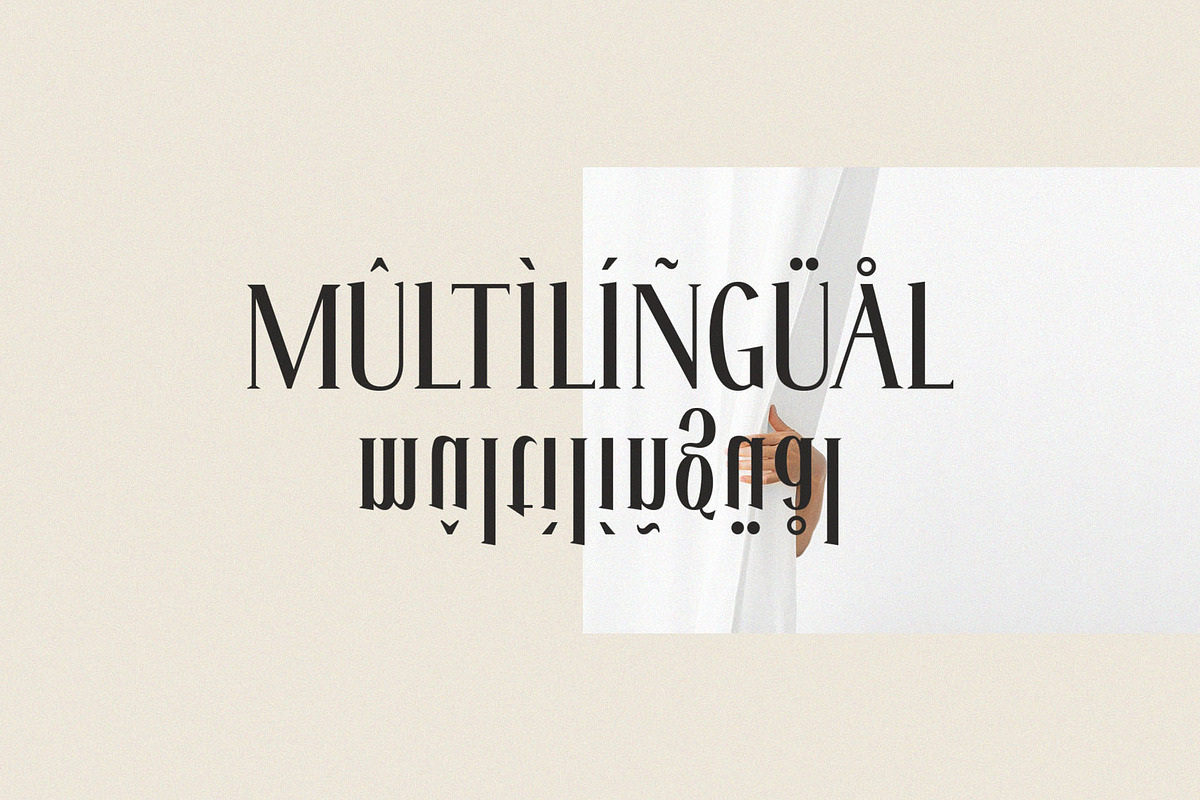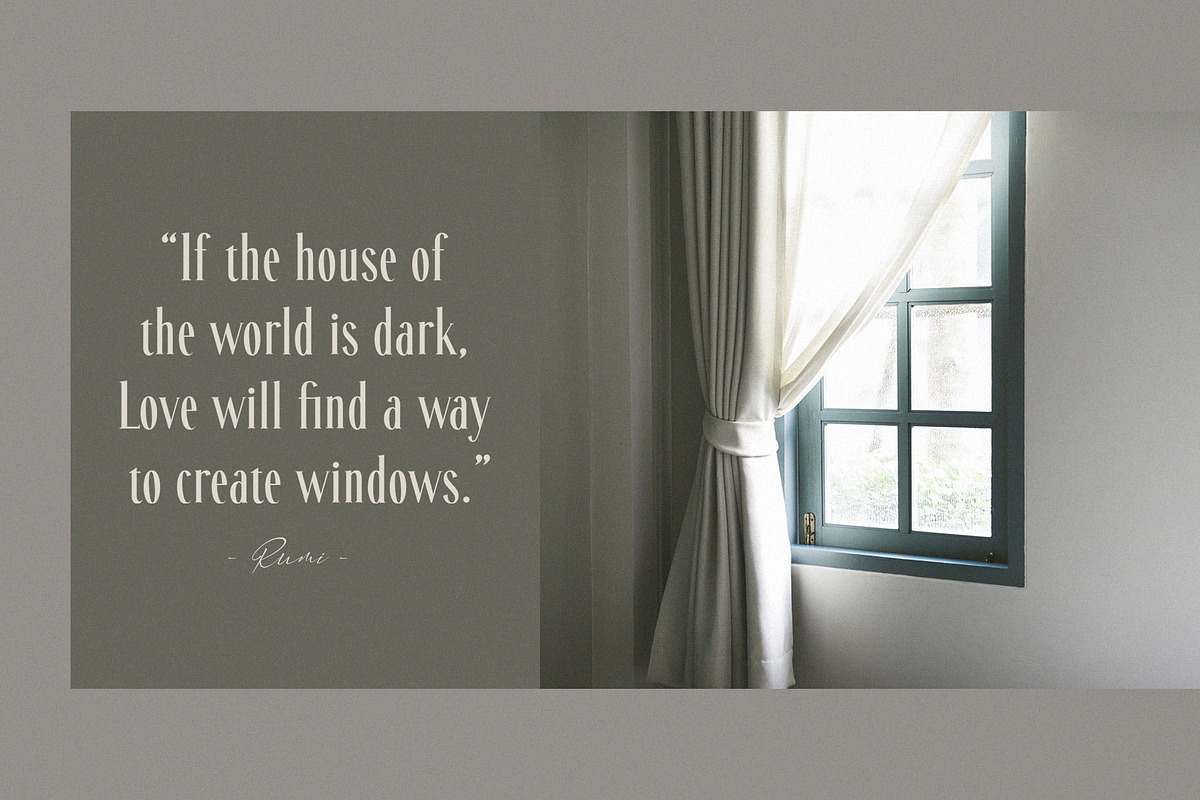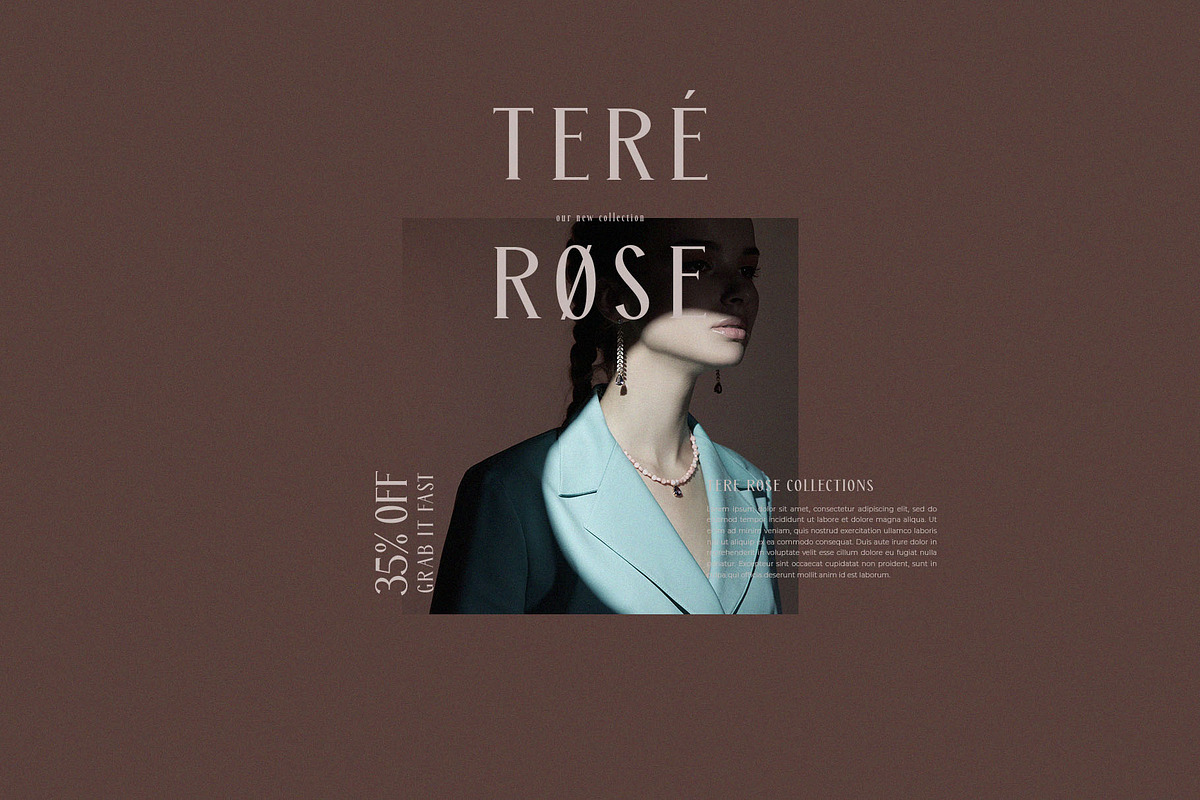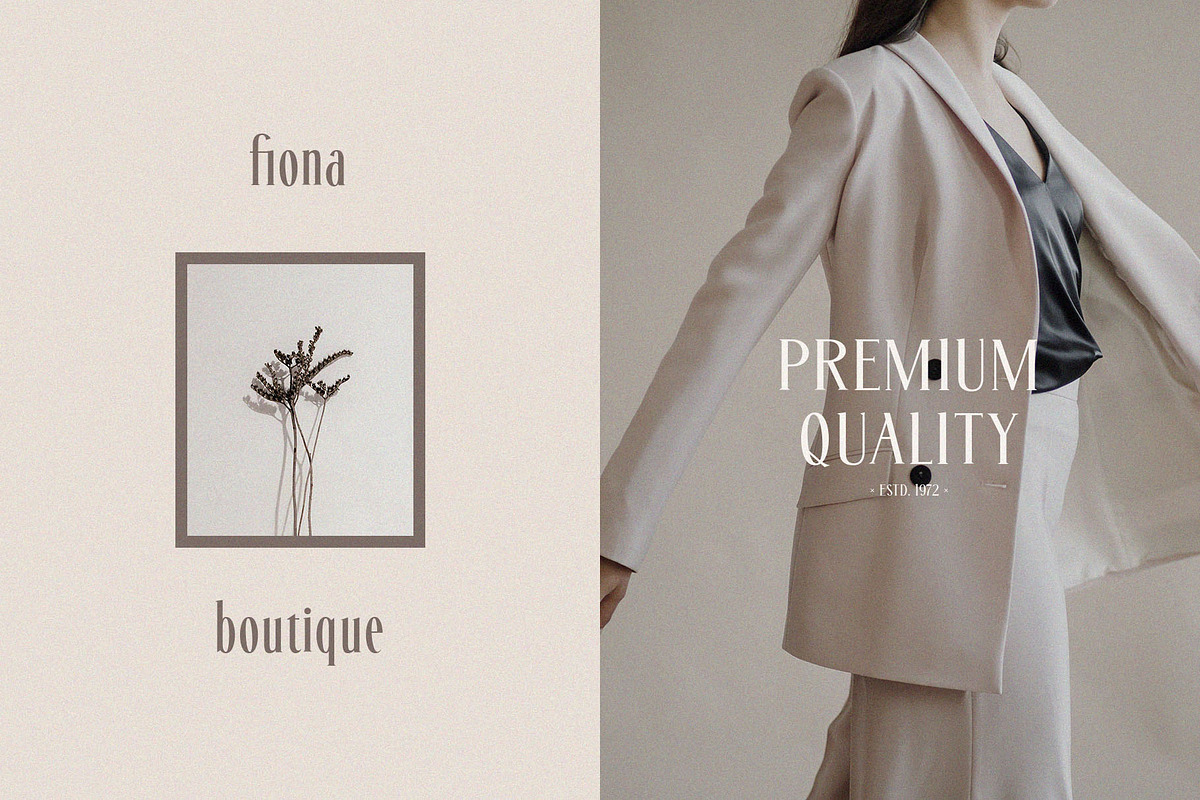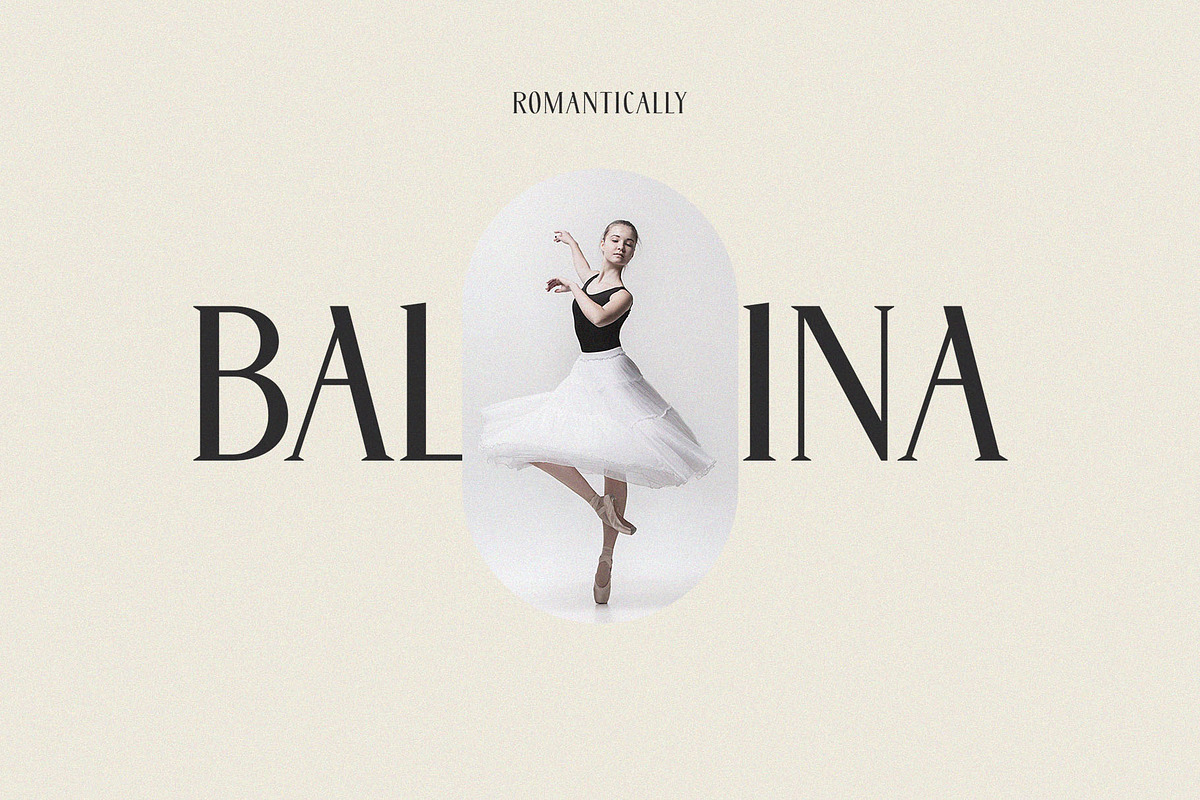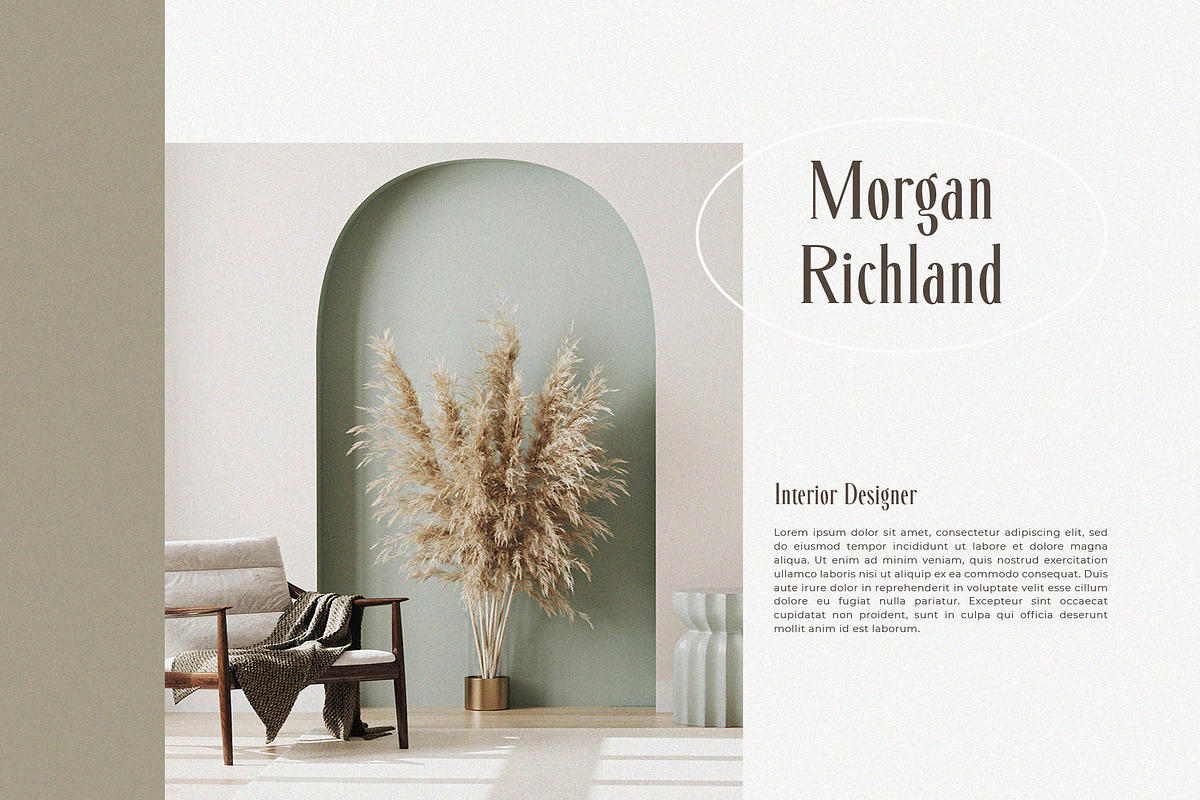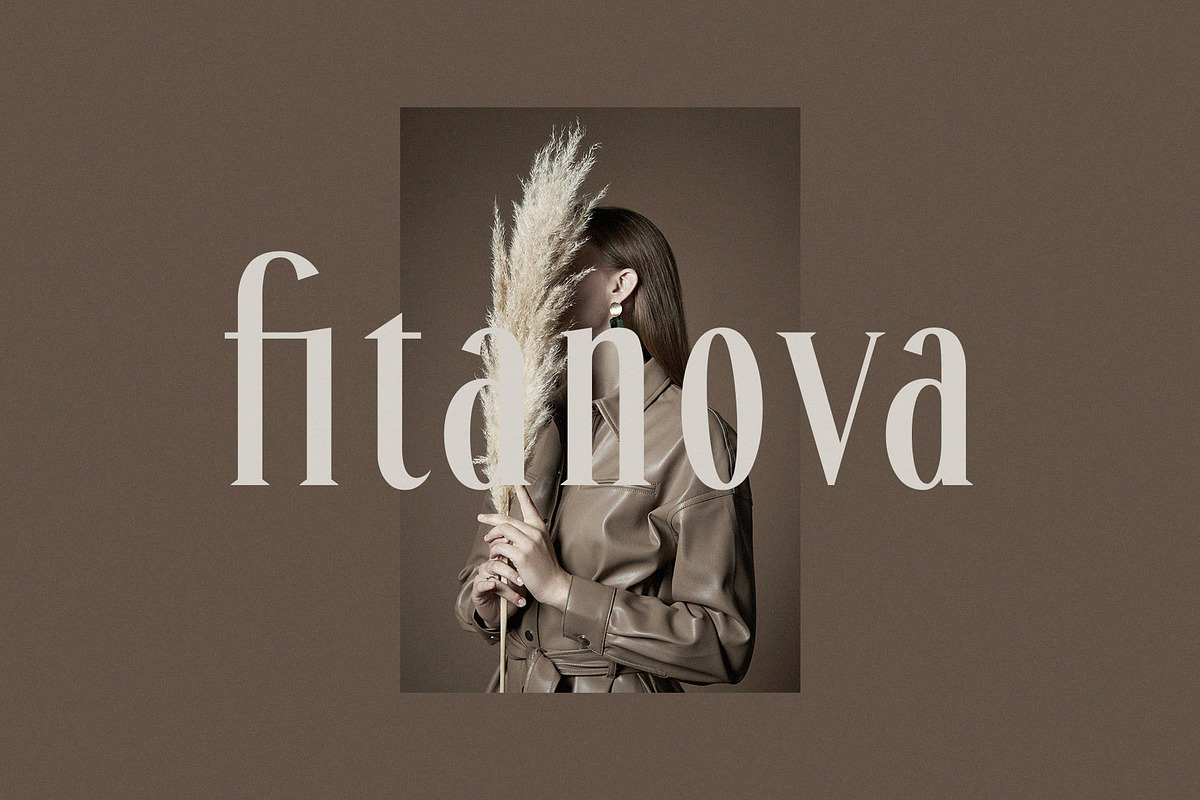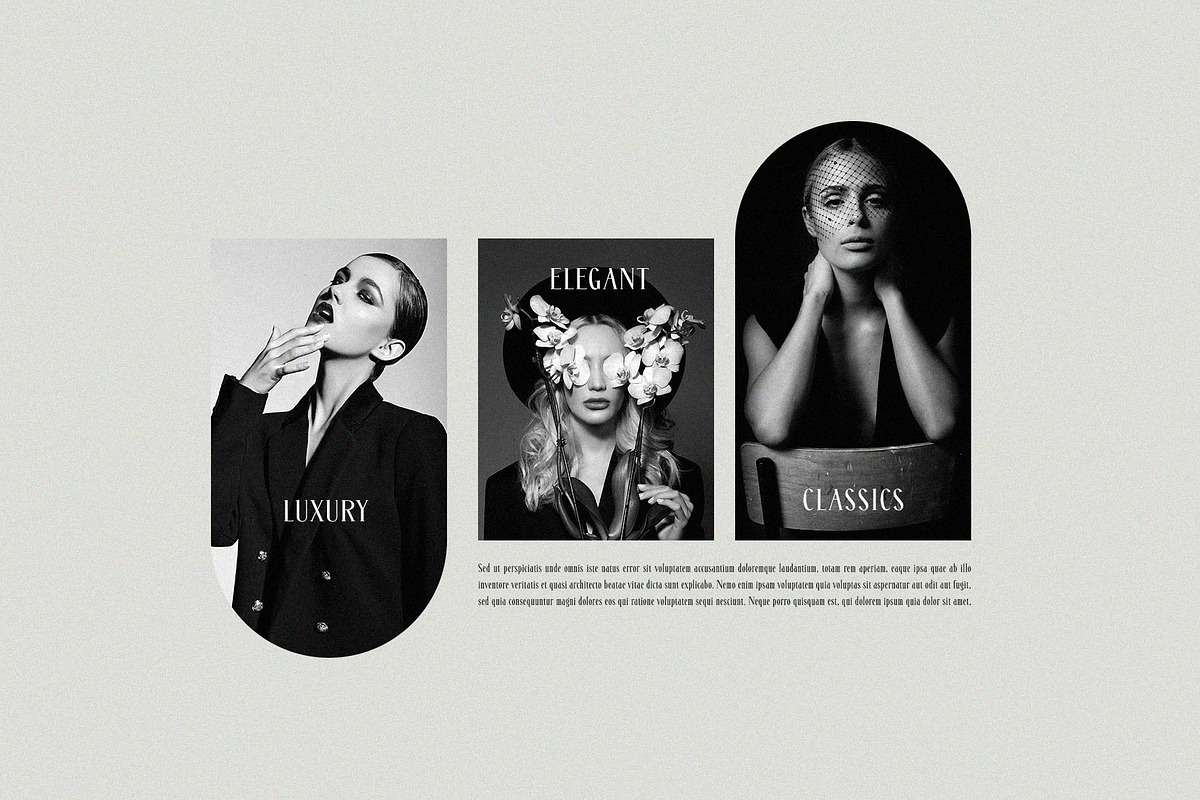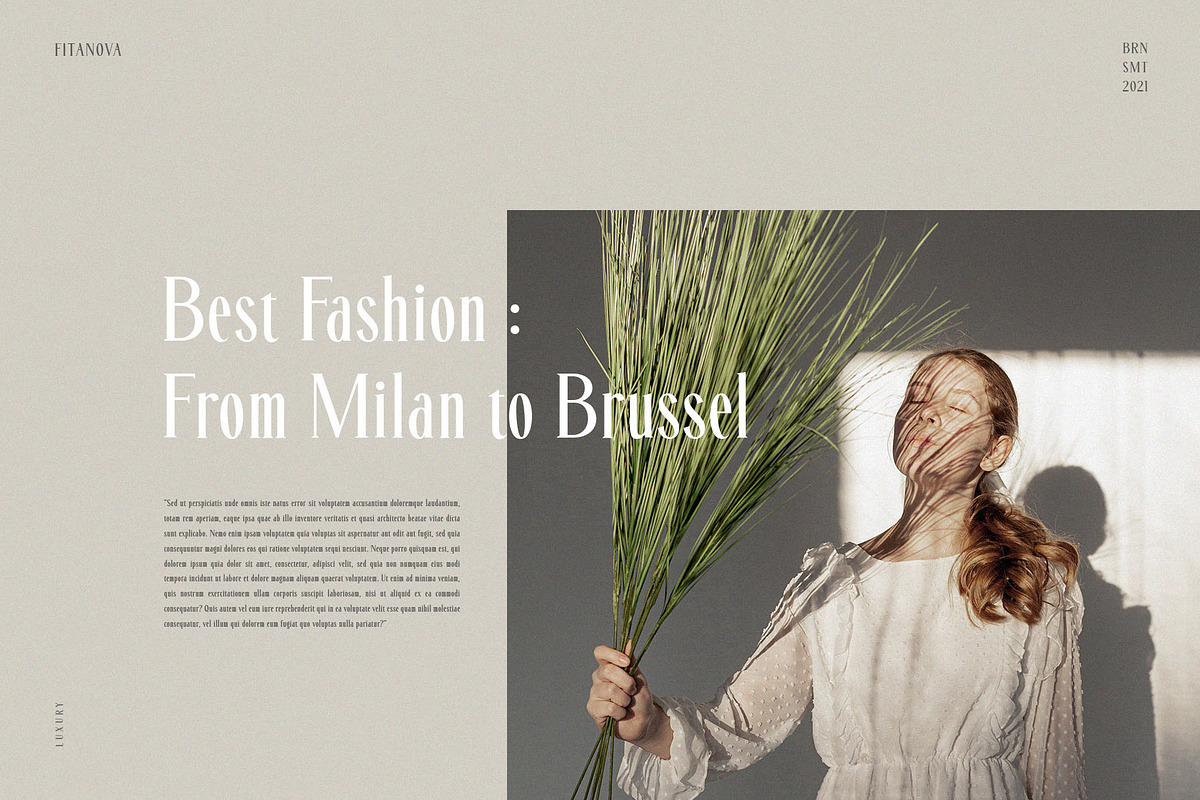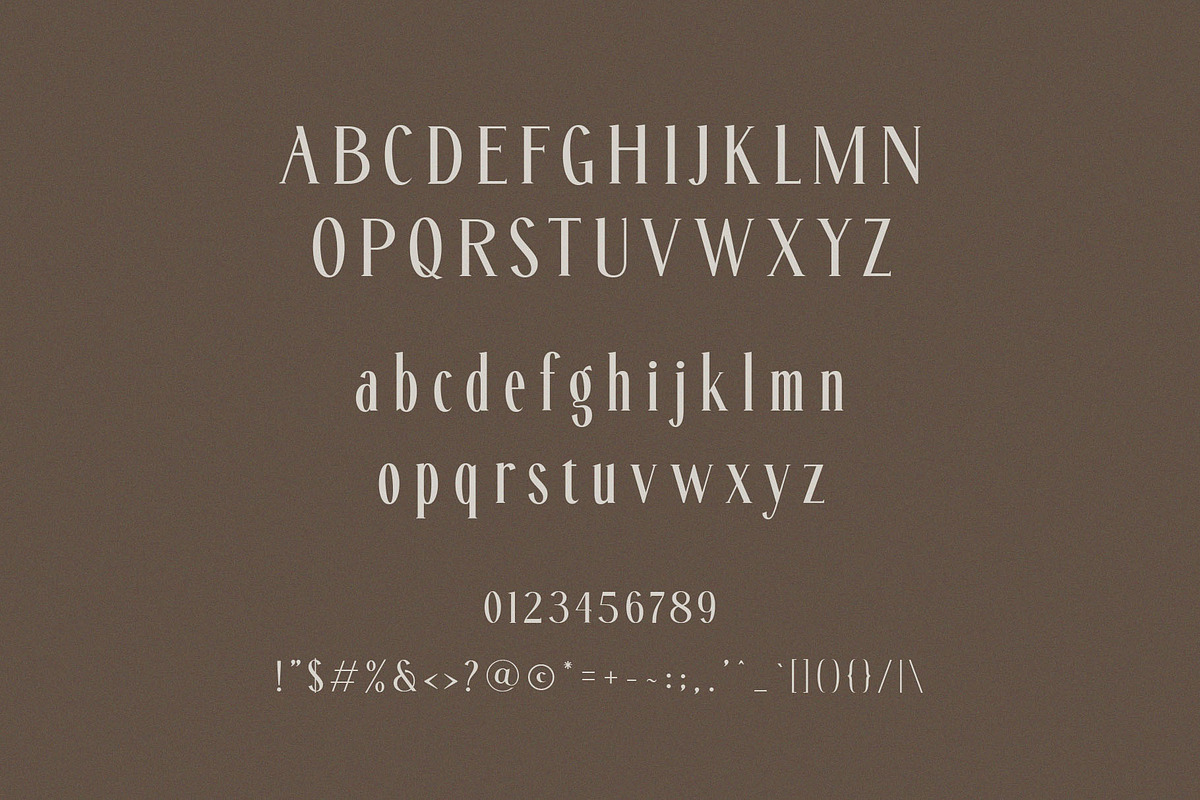
Fitanova || Classy Serif
Introducing the new Fitanova Classy Serif!!! Fitanova is a classy and elegant serif typeface – This font is both modern and nostalgic and works great for logos, magazine, social media. Already matched up and ready to be used together for your next design! For those of you who are needing a touch of elegant, stylish, classy, chic and modernity for your designs, this font was created for you!
Fitanova was built with OpenType features, ligatures, numbers, punctuation, and it also supports other languages.